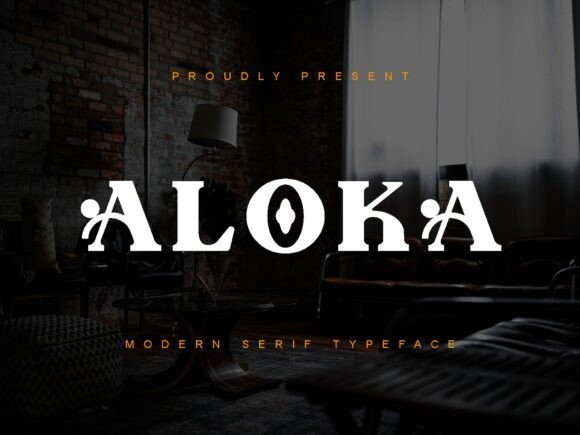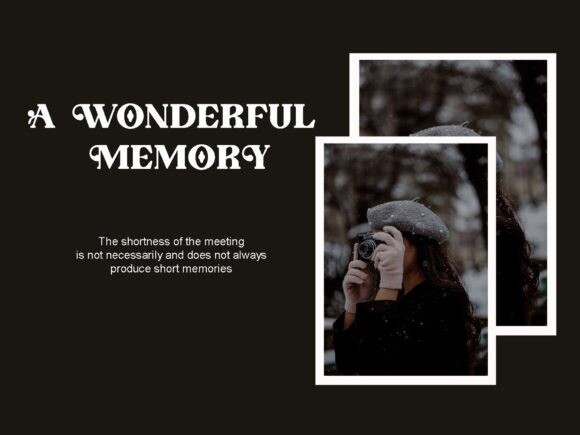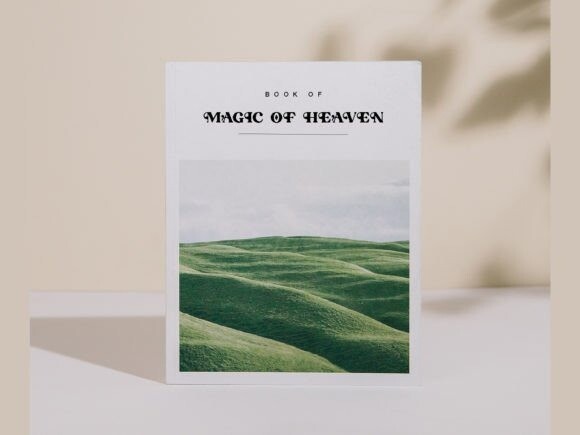
Aloka Font
Introducing **Aloka **, a simple and modern typeface serif font.
So perfect for you who needs a typeface for logo designs, magazine, social media, brochure, and many more.